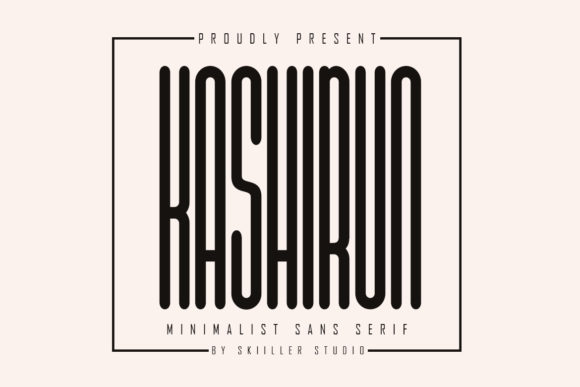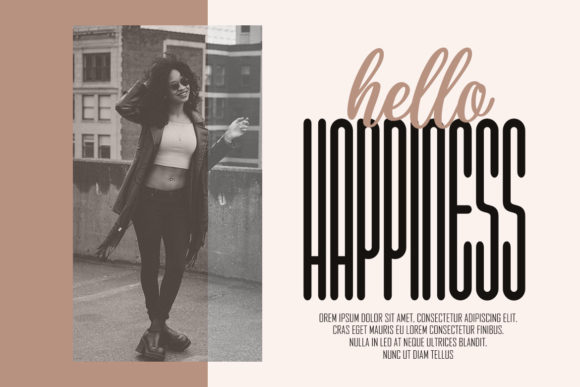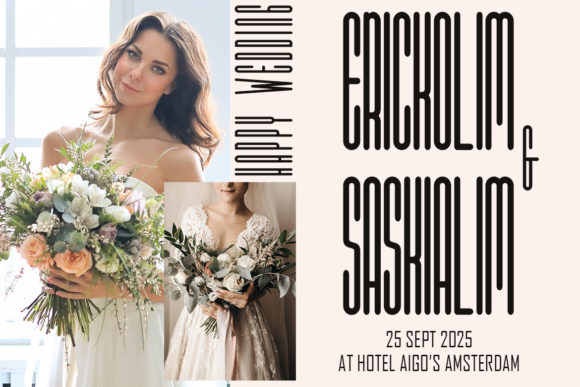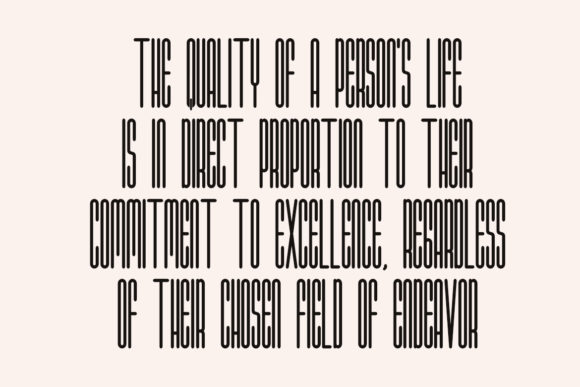
Kashirun Font: Modern, Minimalist Sans Serif for Creative Branding
About the Kashirun Font
The Kashirun Font is here to transform your projects with its distinctive character and style. Kashirun a condensed sans serif font. It has an elegant, classy and modern look, that will truly inspire your works.
Use this font for your designs and explore its endless possibilities.
Kashirun’s condensed structure and elegant forms make it ideal for headlines, short text blocks in branding materials, and impactful logos. Its classy aesthetic lends itself well to high-end product packaging and sophisticated posters. However, its condensed nature makes it less suitable for body text or long paragraphs; readability suffers at smaller sizes. Avoid using it for UI elements requiring extensive text.
The font’s core personality is sophisticated and modern, with a touch of boldness. It’s a strong choice for brands projecting luxury, innovation, or a minimalist aesthetic.
Consider pairing Kashirun with a warmer serif like Merriweather for body copy to create contrast and balance, or a geometric sans-serif like Roboto for a more contemporary feel. A delicate script font could add a touch of handwritten elegance for certain applications.
Kashirun Font Usage Examples
Kashirun Font Example